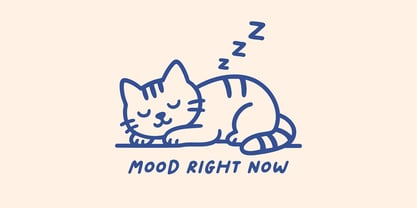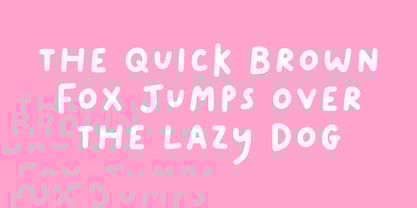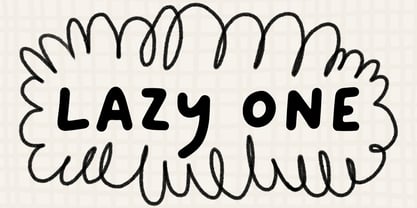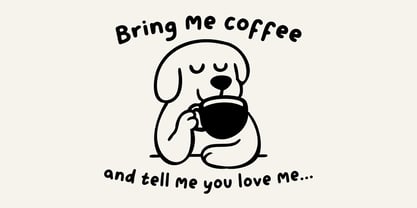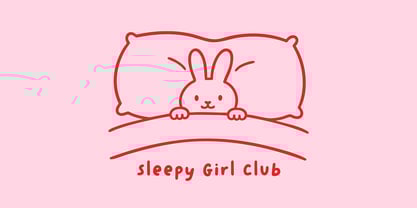
Lazy One
by Happy Type Club
The Lazy One Font Family was designed by Isabel Clarke and published by Happy Type Club. Lazy One contains 1 styles. More about this family
Lazy One is a random imperfect handwriting typeface perfect for any fun quirky design work! This font can be used for anything such as t-shirt designs, phone cases, greeting cards, invitations, mugs and so much more! Get creative!
Designers: Isabel Clarke
Foundry: Happy Type Club